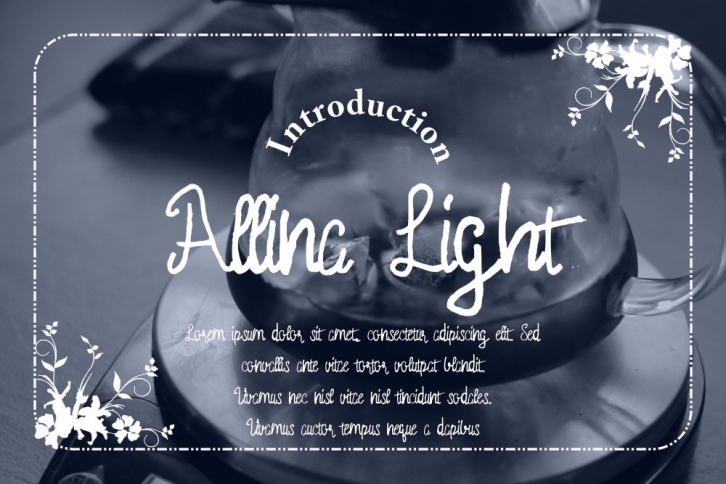
Allina Light is a great font that was designed by gblack-id. Imagine the amount of combinations you can create using this font! The archive is 6.8 MB and it was released on June 13, 2020. Allina Light looks beautiful on wedding invitations, greeting cards, logos, posters, labels, t-shirt designs, logos, business cards and is perfect for use in ink or watercolor works, fashion, magazines, packaging and food menus, children's books and more!